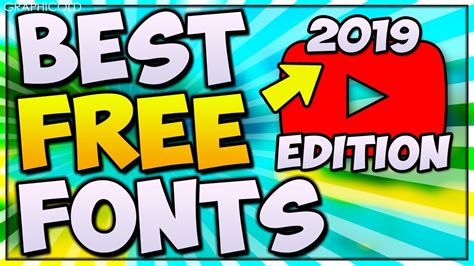
Best Thumbnail Fonts. Best fonts for youtube thumbnails best fonts for vlogging thumbnails. Web designing and choosing the best font for your youtube thumbnail;
Web how to choose the best fonts for thumbnails? Best fonts for youtube thumbnails best fonts for vlogging thumbnails. Web 25 best youtube fonts for thumbnails & videos in 2023. Select a font that aligns with the overarching theme or subject of your content. Web another example on the list of best youtube thumbnail fonts is badaboom bb, extensively used by wengie on her channel, and it’s honestly such a great. Web designing and choosing the best font for your youtube thumbnail;
Web how to choose the best fonts for thumbnails? Best fonts for youtube thumbnails best fonts for vlogging thumbnails. Select a font that aligns with the overarching theme or subject of your content. Web designing and choosing the best font for your youtube thumbnail; Web 25 best youtube fonts for thumbnails & videos in 2023. Web how to choose the best fonts for thumbnails? Web another example on the list of best youtube thumbnail fonts is badaboom bb, extensively used by wengie on her channel, and it’s honestly such a great.